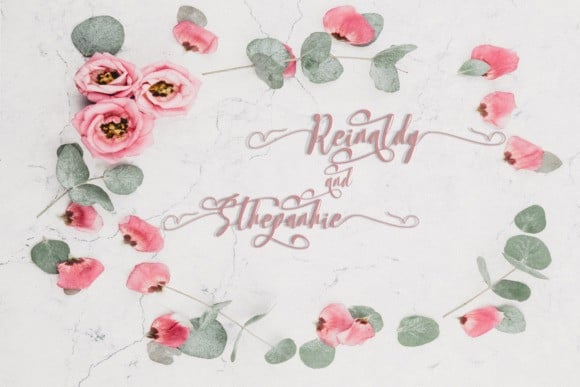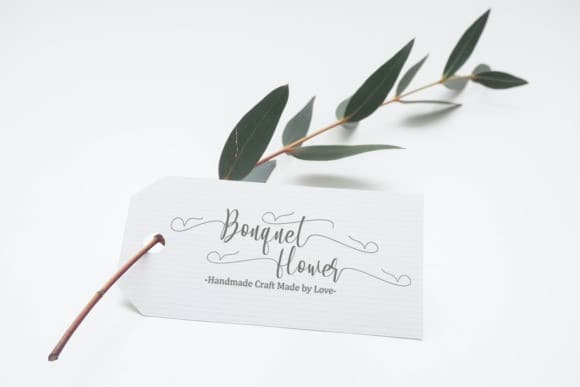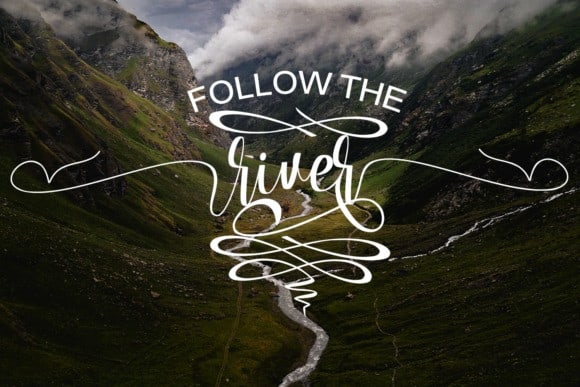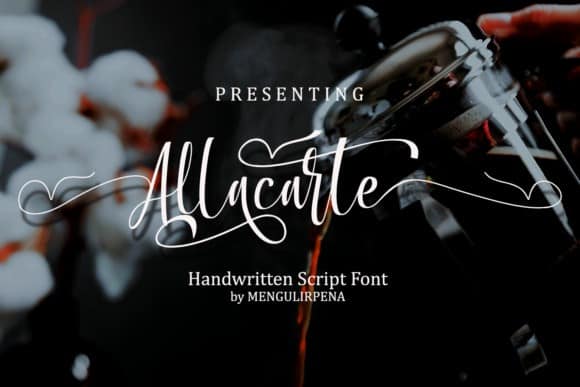
Allacarte Calligraphy Font is soft and sweet calligraphy typeface, with characters dance along the baseline. It feels equally charming and elegant. It looks stunning on wedding invitations, thank you cards, quotes, greeting cards, logos, business cards and every other design which needs a handwritten touch.
Allacarte Calligraphy Font is PUA encoded which means you can access all of the glyphs and swashes with ease! It features a varying baseline, smooth lines, gorgeous glyphs and stunning alternates.